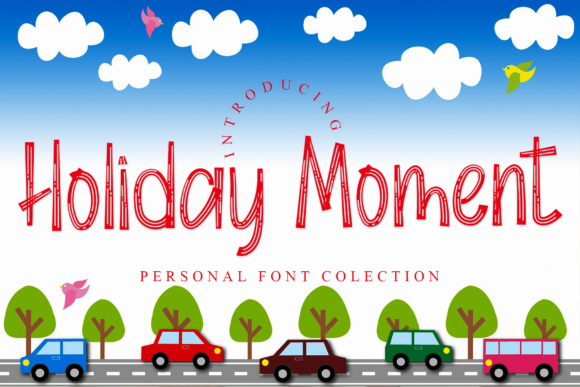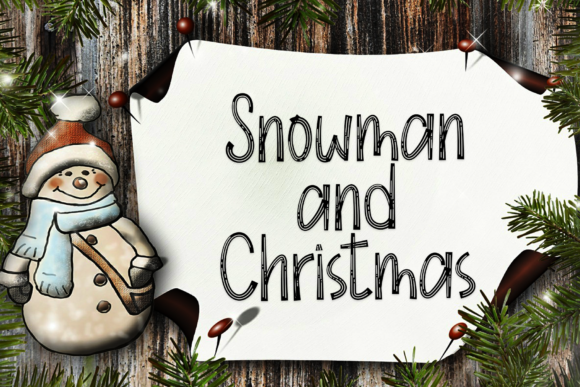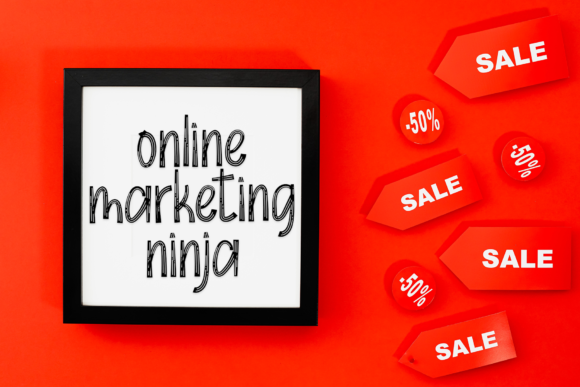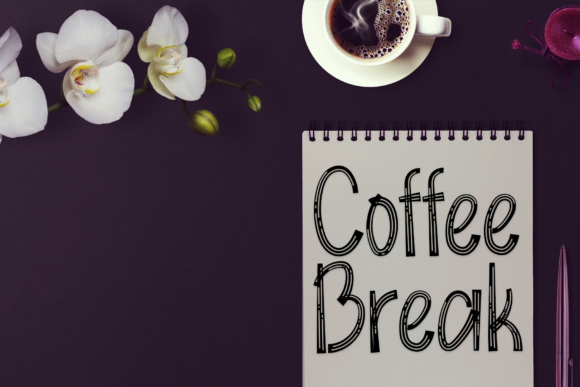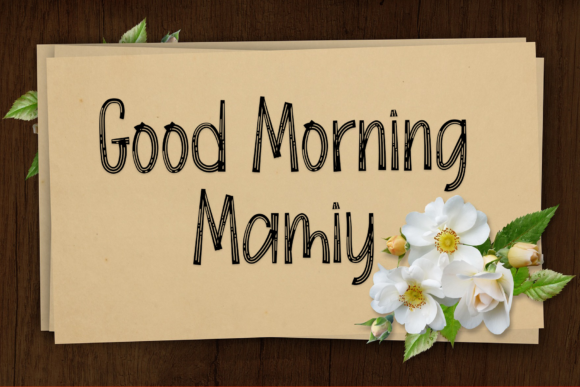
A Spark of Creativity
As you scroll through your social media feeds, have you ever stumbled upon a beautifully designed holiday card or a festive advertisement that left you feeling inspired? Perhaps it was the perfect combination of colors, typography, and imagery that caught your eye. For designers, these moments of creative spark can be the starting point for something truly special.
That’s where the Holiday Moment Font comes in – a unique and elegant display font designed to add a touch of magic to any design project. With its sophisticated style, this font is perfect for creating holiday-themed designs, from greeting cards to festive packaging, that exude warmth and cheer. Whether you’re a seasoned designer or just starting out, the Holiday Moment Font is a valuable addition to your toolkit.
Holiday Moment Font Key Features
- Font Family: Holiday Moment Font is a unique, hand-drawn font family designed to evoke the spirit of the holiday season.
- Character Set: Includes a wide range of characters, including uppercase and lowercase letters, numbers, punctuation, and holiday-themed symbols.
- Unique Characteristics: Features a distressed, hand-crafted look with subtle texture and imperfections, adding a touch of warmth and personality to your designs.
Holiday Moment Font Review
Overall, I think the Holiday Moment Font is a lovely addition to any design project. The font’s unique blend of vintage and modern elements ✨ makes it perfect for creating a nostalgic and festive atmosphere. The font’s weight and contrast options allow for a range of uses, from bold headlines to delicate body text.
- The font’s script and ligature features ✨ add a touch of elegance and sophistication to any design.
- The Holiday Moment Font is well-suited for designs related to the winter season, such as Christmas cards, holiday invitations, and winter wonderland-themed websites.
However, there are a few limitations to consider ⚠️. The font may not be the best choice for designs that require a more modern or minimalist aesthetic. Additionally, the font’s weight and contrast options may not be suitable for very small or large text sizes.
Overall, I would give the Holiday Moment Font 4 out of 5 stars. While it has some limitations, its unique style and versatility make it a great addition to any design project. With some careful consideration of the font’s limitations, I think it could be a real showstopper for the right design.
To get the most out of the Holiday Moment Font, try using it in conjunction with festive graphics and colors. Experiment with different font sizes and styles to create a unique look.
The Holiday Moment Font is perfect for creating festive holiday invitations, social media graphics, and print materials. It’s also great for adding a touch of holiday cheer to your website or blog.
Alternatives to Holiday Moment Font
Copperplate is a classic script font that is reminiscent of traditional handwritten lettering. It is ideal for use in invitations, wedding stationery, and other special occasions where a touch of elegance is desired. Copperplate is more formal and sophisticated than Holiday Moment Font, making it a better choice for high-end events.
Great Vibes is a modern script font that is perfect for creating a fun and lively atmosphere. It is ideal for use in social media graphics, advertising, and other promotional materials where a sense of excitement and energy is desired. Great Vibes is more playful and casual than Holiday Moment Font, making it a better choice for younger audiences and more casual events.
Carolyna Pro is a elegant script font that is inspired by traditional calligraphy. It is ideal for use in formal invitations, wedding stationery, and other special occasions where a touch of luxury is desired. Carolyna Pro is more refined and sophisticated than Holiday Moment Font, making it a better choice for high-end events and formal occasions.